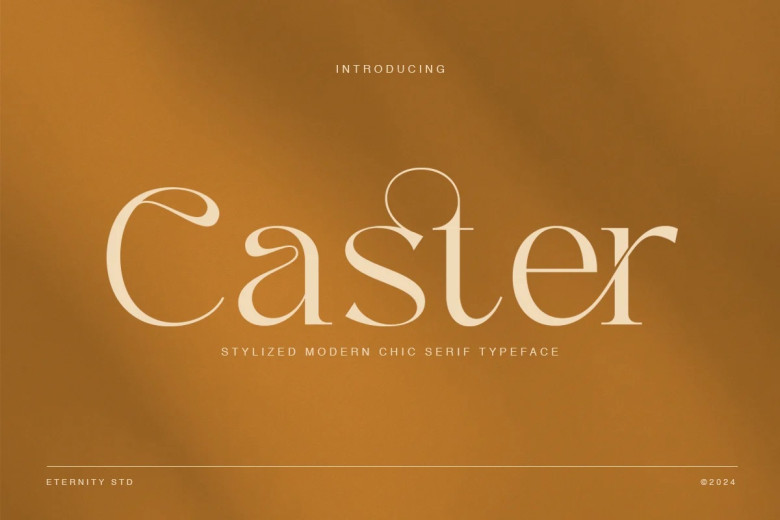
Caster Font
Caster serif font, this font is not merely about aesthetics, but it’s an invitation to give your designs the sophistication of luxury. Because of its smooth alternates and elegant ligatures, Caster is suitable for all your graphic designing functions. If it is a logo, a poster, or a beautiful website you are designing then this font hits the mark.
Caster Serif Font